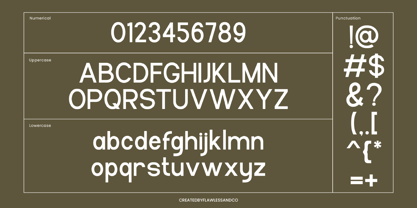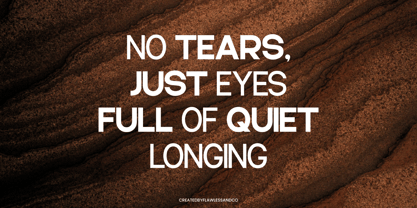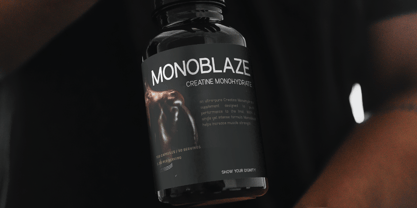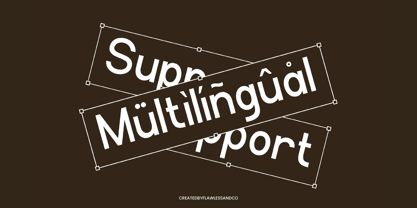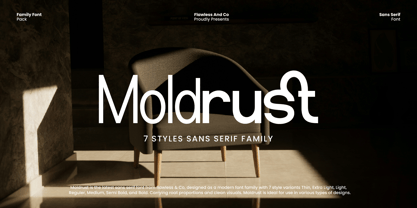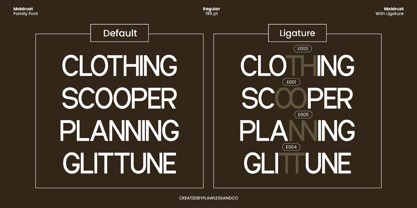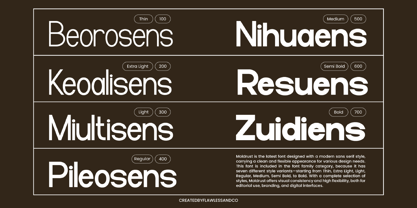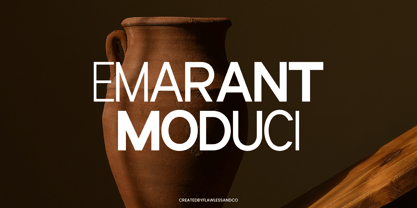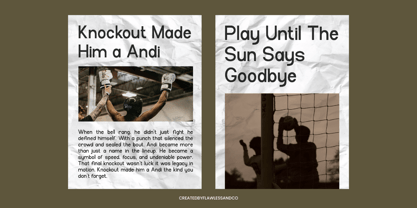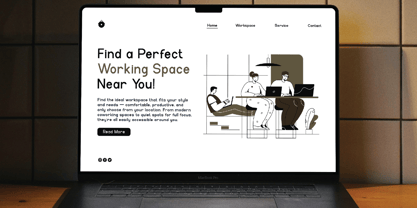
Moldrust
The Moldrust Font Family was designed by Achmad Yani and published by Flawlessandco. Moldrust contains 7 styles and family package options. More about this family
Moldrust is a modern sans serif font family with 7 style variants: Thin, Extra Light, Light, Regular, Medium, Semi Bold, and Bold. Carrying clean visuals and well-balanced proportions, Moldrust offers clarity and versatility across a wide range of design needs — from editorial and branding to packaging and digital applications. With its minimalist construction and elegant geometry, Moldrust is perfect for projects that demand both functionality and contemporary aesthetic.
Features :
Multilingual, Uppercase alphabet A-Z, Lowercase alphabet a-z, Numbers 0-9, Some punctuation, Alternates & Ligatures